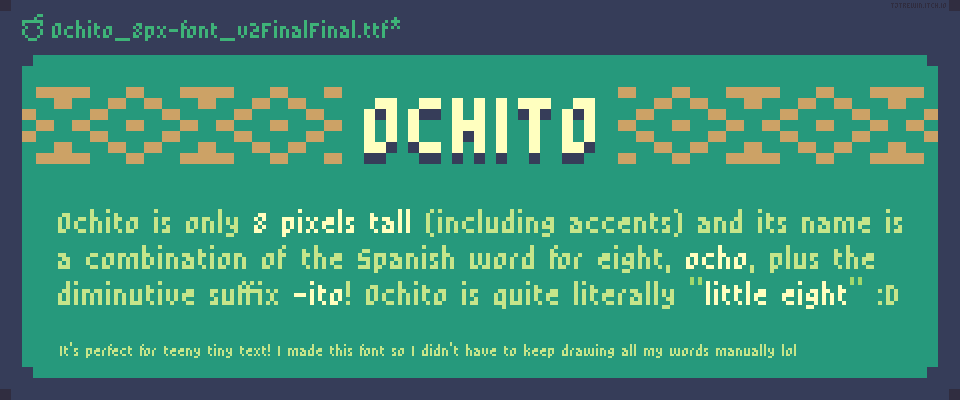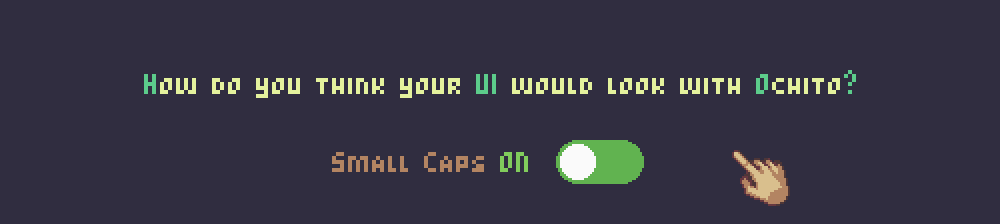
Ochito - Pixel Font
Ochito is a small 8px font suitable for teeny tiny text. I made this font so that I didn't have to keep manually drawing every word on my titles and labels - I hope it saves you a bunch of time, too!
- Multi-lingual support
- Kerning - letter spacing is already balanced for you
- Ligatures - enable this setting in your tool to join lowercase f characters together (ff, ffi, ffl, fl, fj)
- Small caps -turns lowercase letters into mini uppercase ones
This includes the full Latin & Latin Extended unicode block, with some fun extras. I made glyphs for the Roman numerals from 1-12 in case you find them useful for things like chapters, clocks, or levelled items in your game :D
- This font renders correctly at 8px and multiples of 8
(8, 16, 24, 32, 40, 48, 56, 64, 72, 80, 88, 96, etc) - Disable anti-aliasing where possible to keep the edges sharp and clear
Ochito is named from the Spanish word for eight, ocho, plus the diminutive suffix -ito. It quite literally means "little eight"! :D